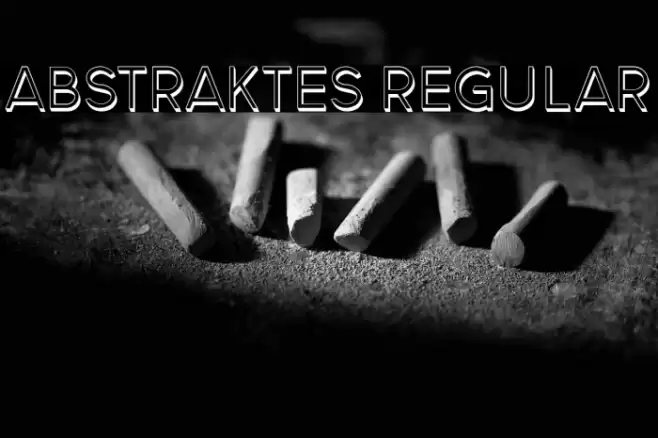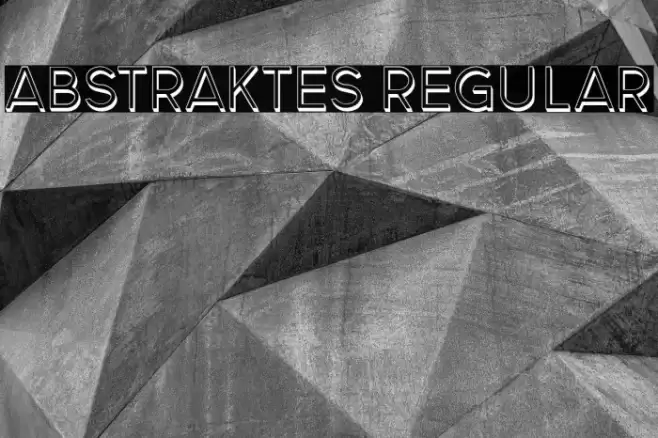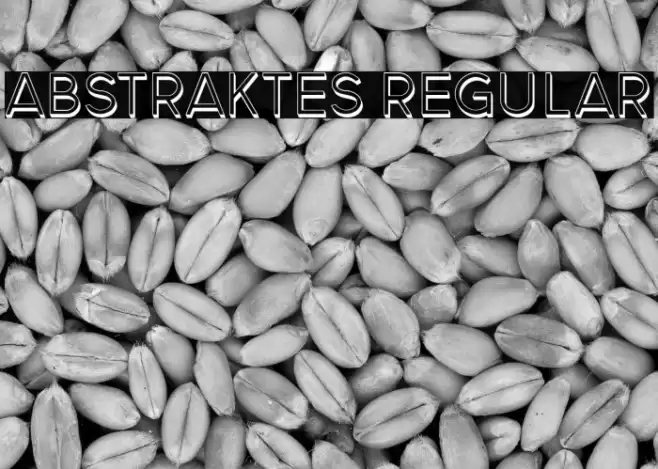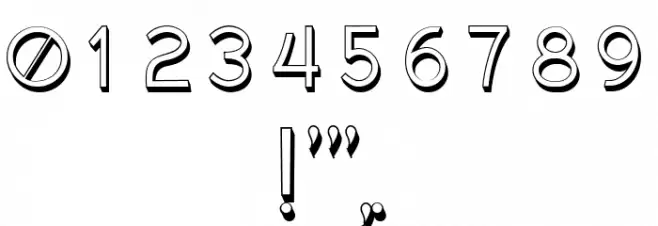
Abstraktes Regular Font
Abstraktes Regular Description
This font features a modern, geometric design with a three-dimensional effect created by its shadowed outline. The uppercase and lowercase letters are consistent in style, with clean lines and a balanced structure. The numerals and special characters maintain the same aesthetic, ensuring uniformity across all glyphs. The font's unique shadowing gives it a bold, eye-catching appearance, making it suitable for impactful designs. Its clear, sans-serif style enhances readability while the shadow adds a decorative touch.
A modern, geometric font with a shadowed, three-dimensional effect from Regular fonts.
- Proposed Projects: Ideal for branding, posters, headlines, and any design requiring a bold, modern look.